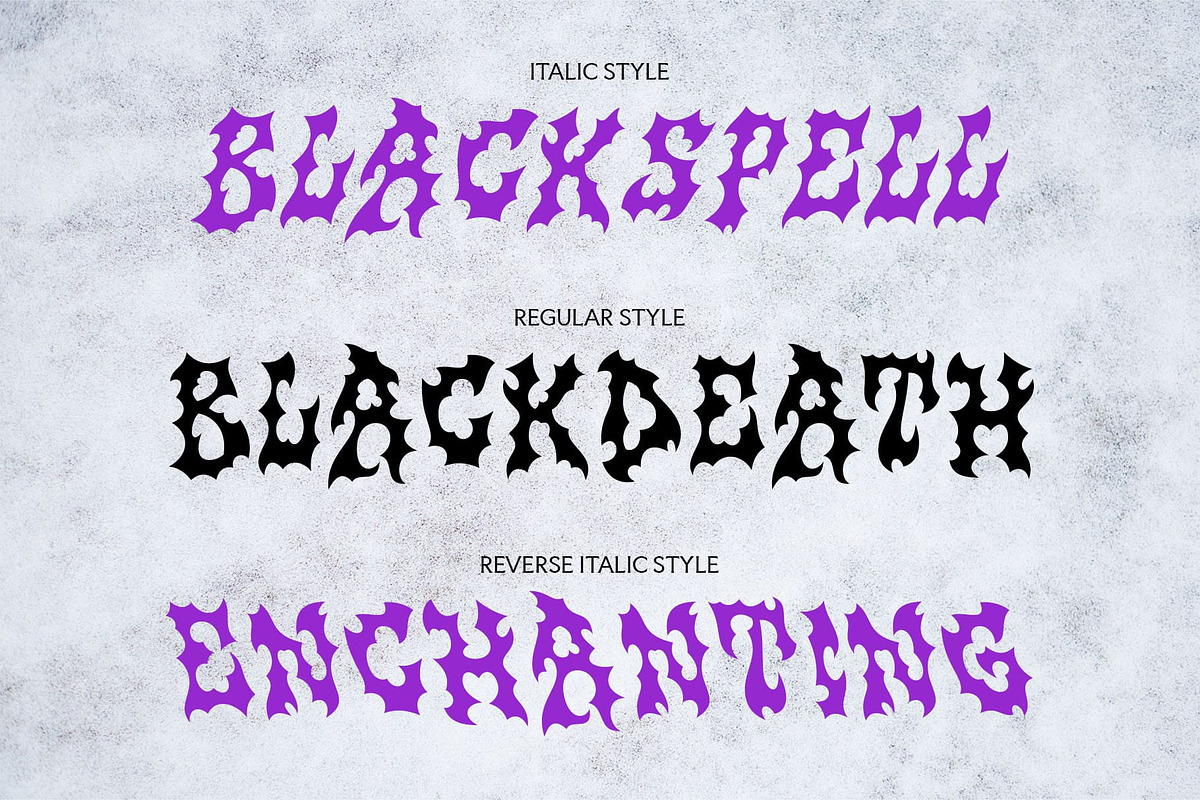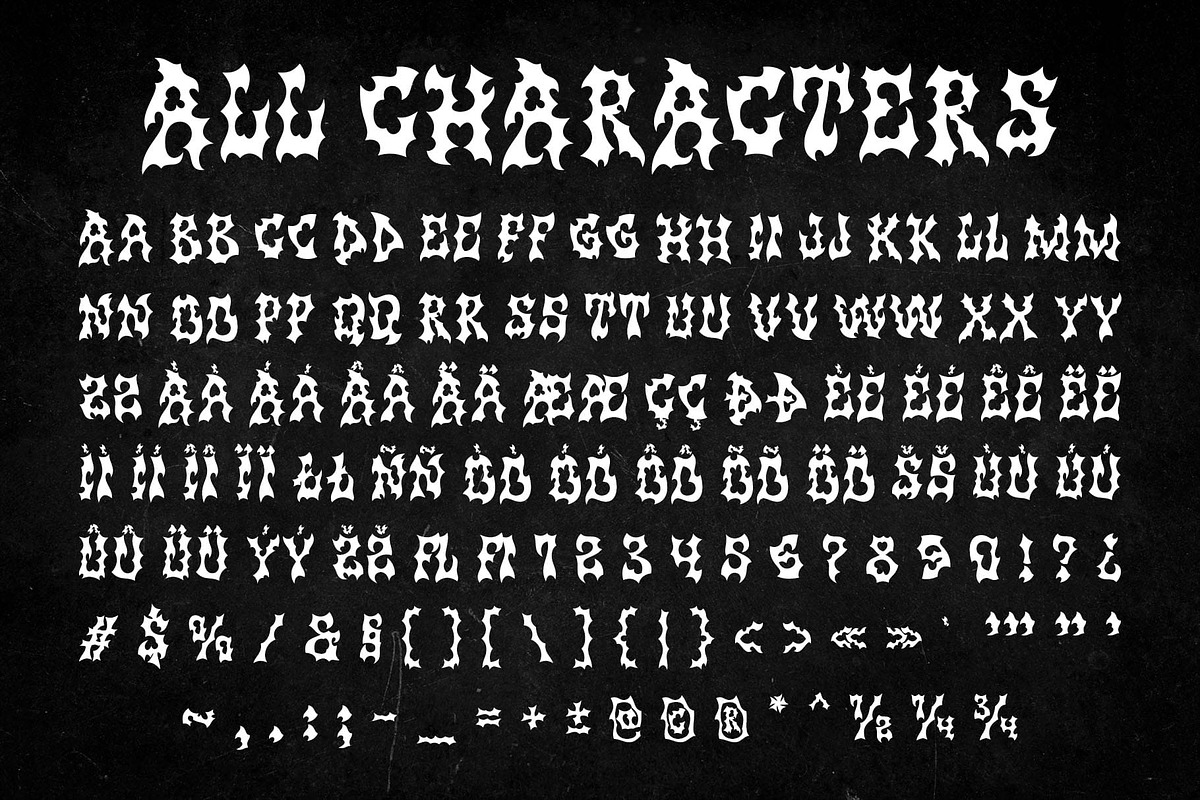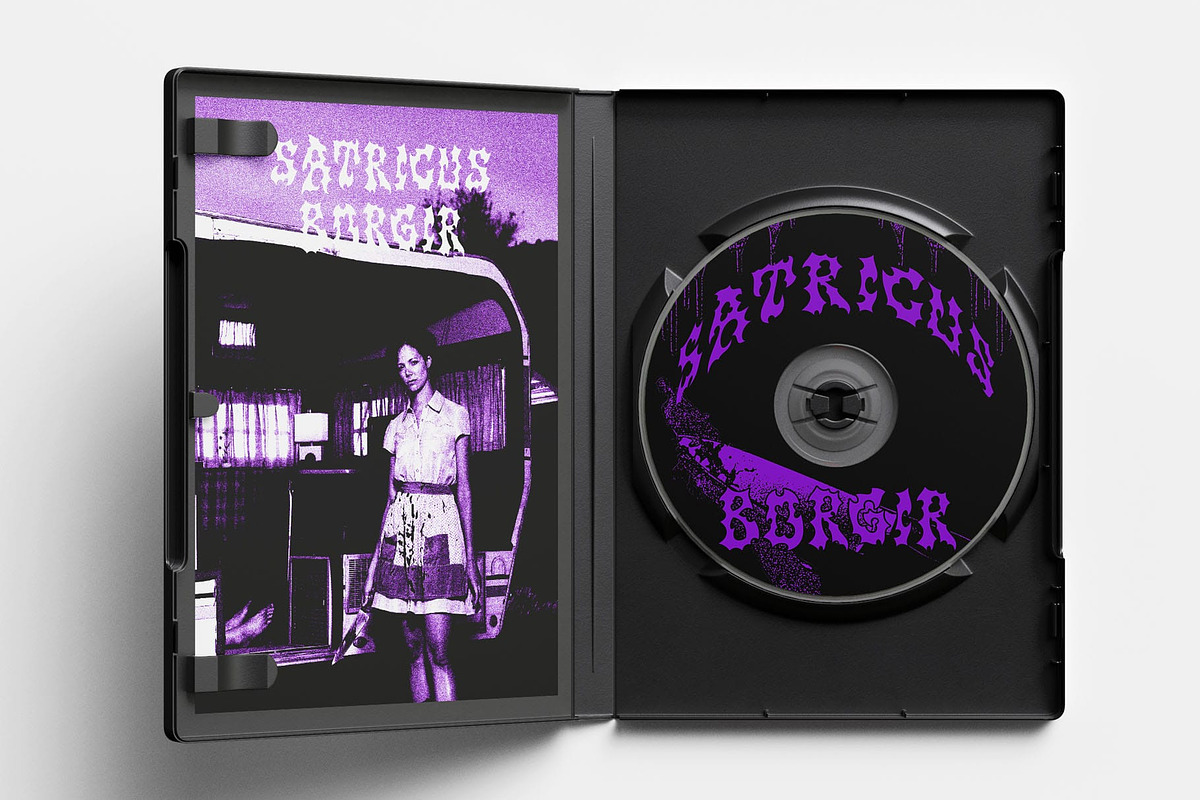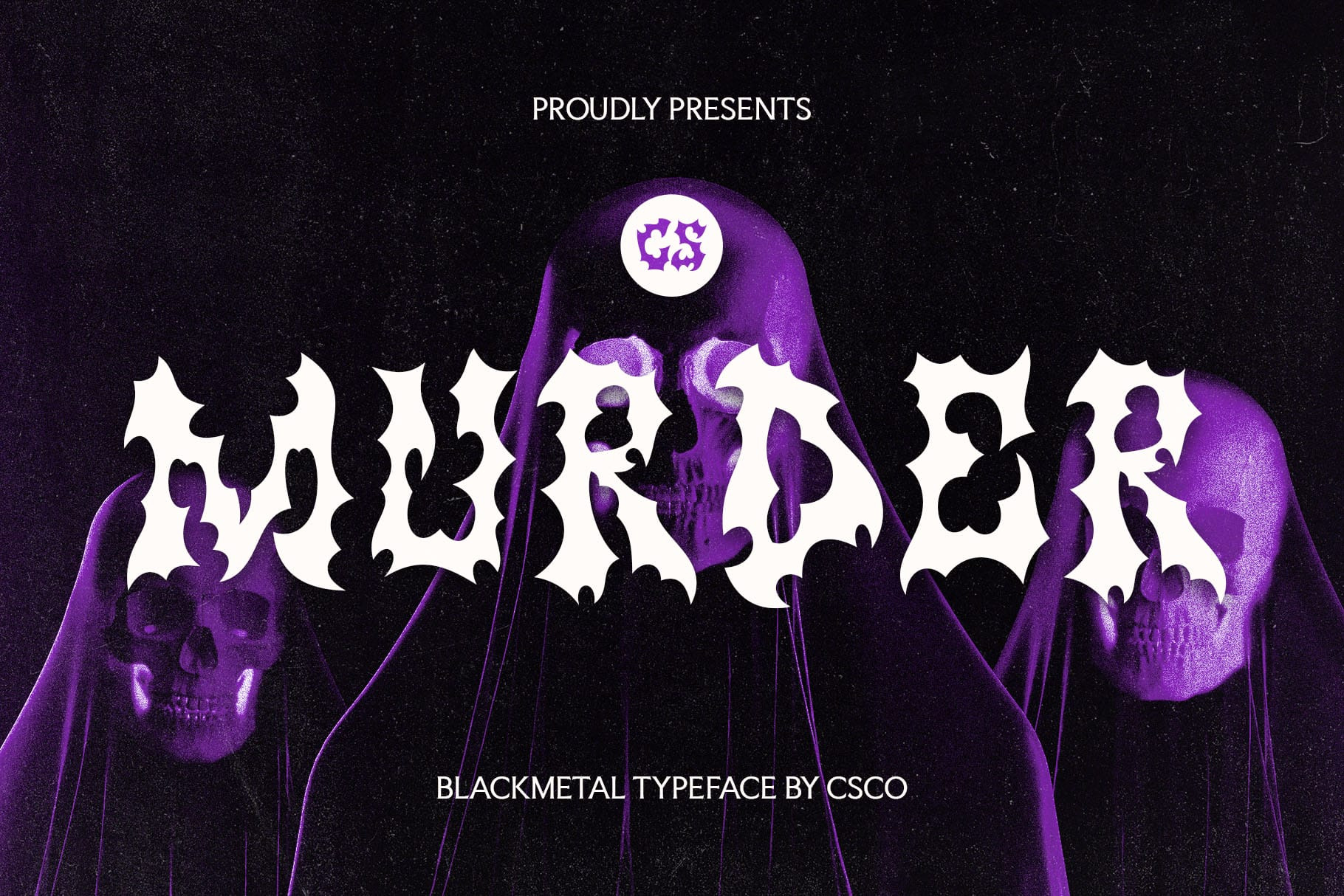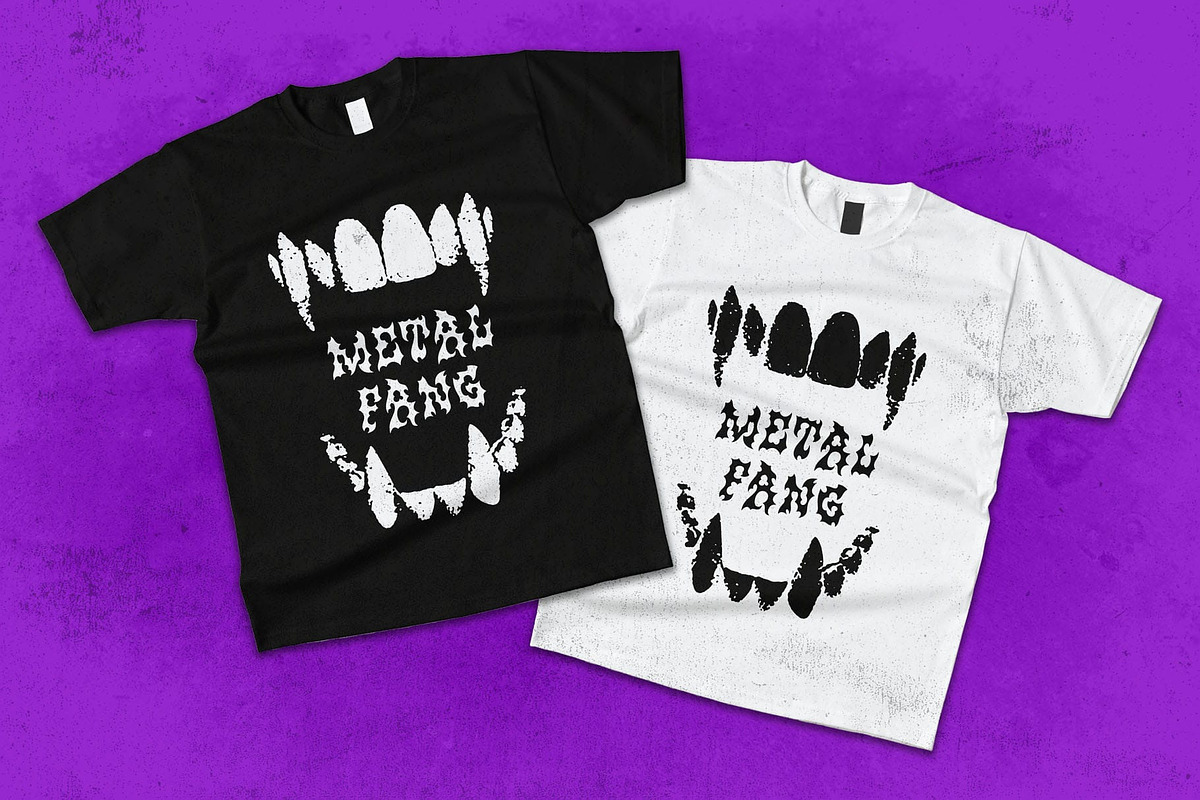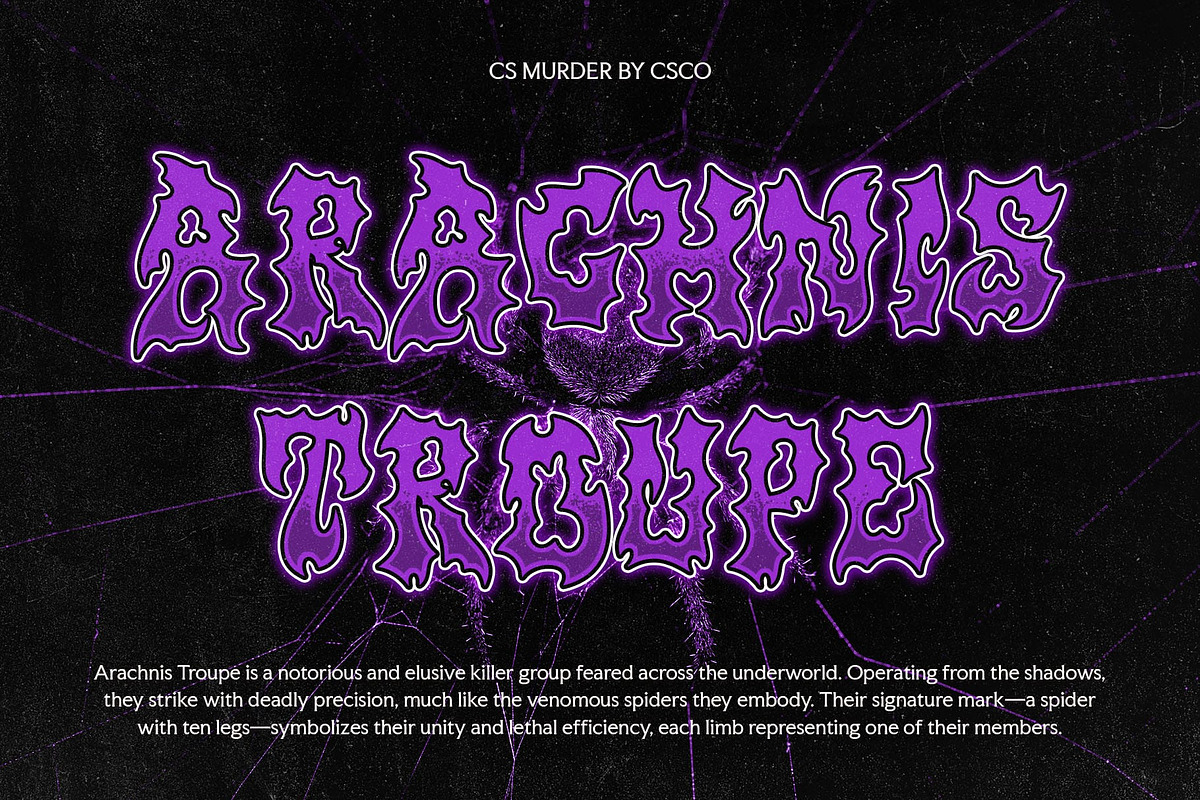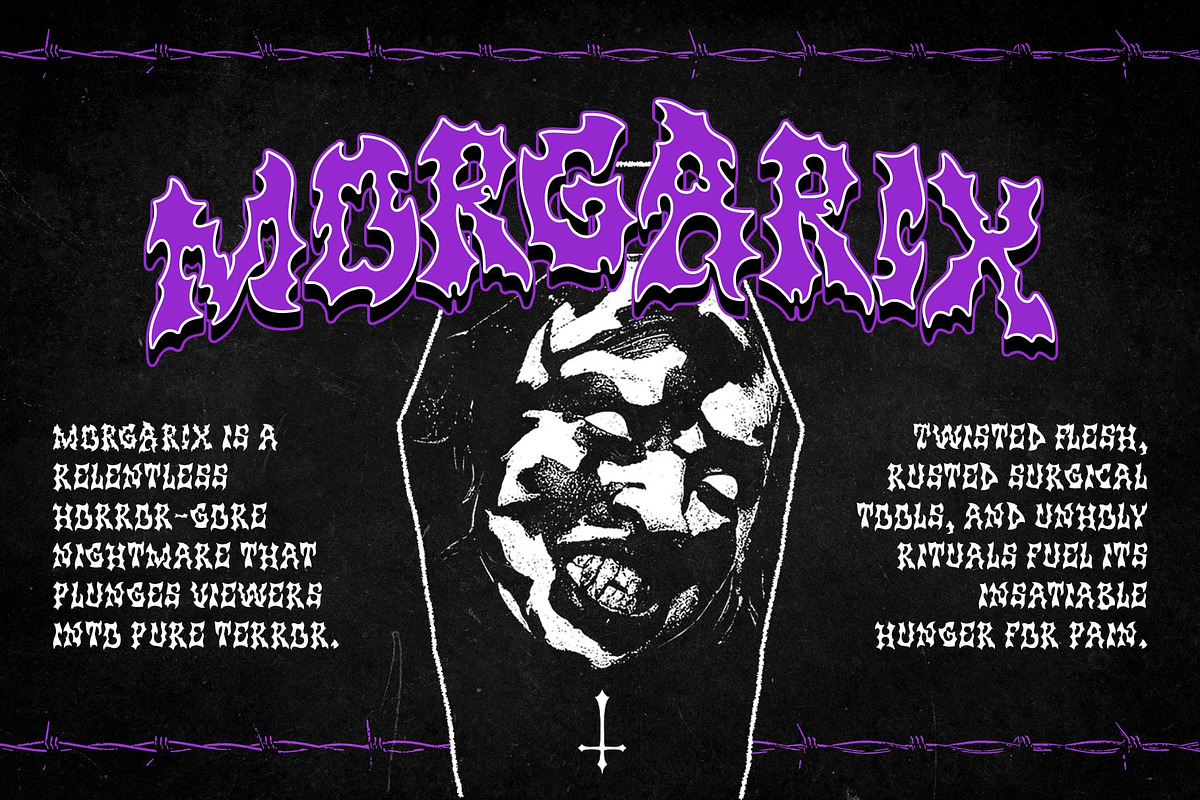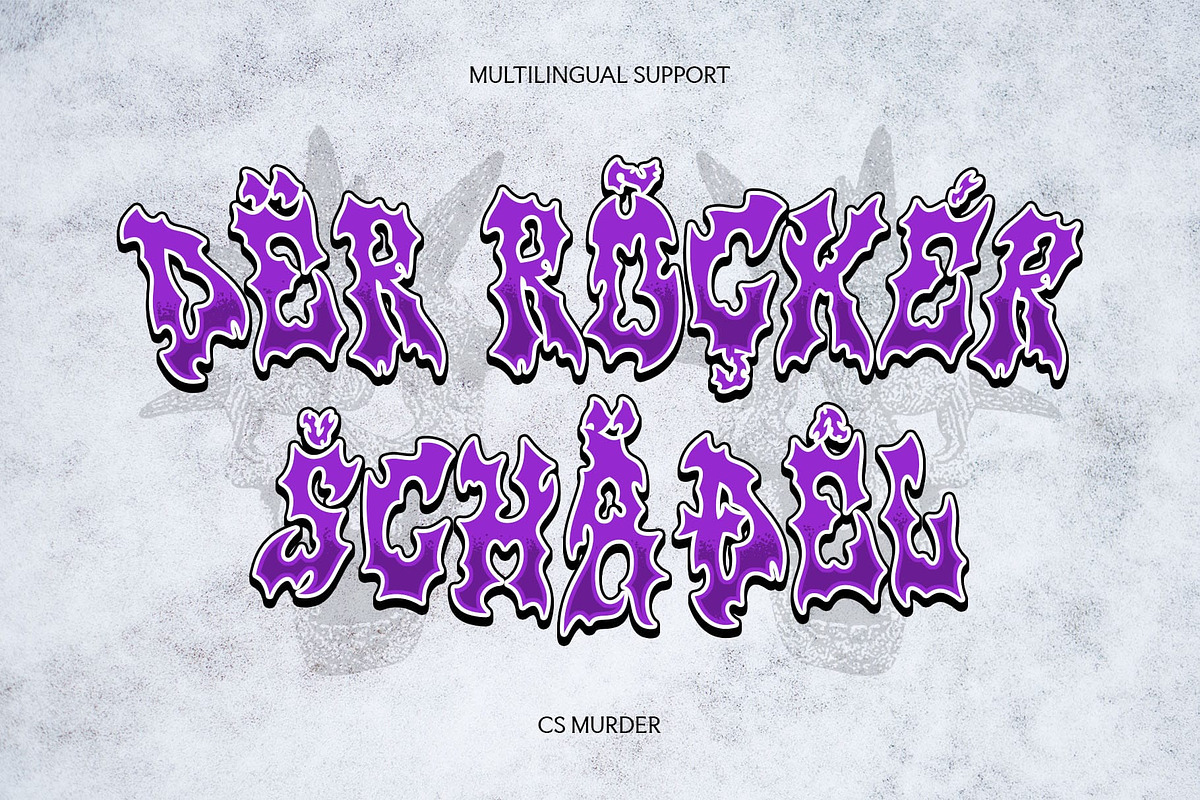
CS Murder – Black Metal Font
CS Murder – A Brutal & Haunting Black Metal Font
Unleash Darkness with Sharp, Thorn-Like Letterforms CS Murder is a Black Metal display font crafted to embody the raw aggression, chaos, and mysticism of extreme metal typography. Featuring sharp, jagged strokes that resemble twisted roots, thorns, or cracked branches, this font exudes a dark, eerie, and ominous presence. Its intricate details and distressed letterforms create a sense of brutality and rebellion.
Perfect for Extreme & Gothic-Themed Designs Designed for metal band logos, album covers, horror branding, gothic artwork, and dark fantasy themes, CS Murder is tailor-made for projects that embrace darkness and intensity. Its aggressive and highly detailed design perfectly captures the essence of black metal, death metal, and other extreme subgenres, making it a must-have for designers looking to create intimidating, electrifying, and high-impact visuals.
Command Attention with a Menacing & Unforgettable Style CS Murder is more than just a font—it’s an artistic statement of chaos and rebellion. Its ornate, chaotic letterforms add a ritualistic and supernatural feel, making it ideal for underground music scenes, horror projects, occult-inspired visuals, and alternative fashion branding.
Ideal for Designs That Evoke Fear & Power With its brutal, twisted aesthetic, CS Murder is perfect for those who want to push the boundaries of dark, gothic, and extreme design. Let your creations stand out with a font that radiates intensity, mysticism, and an unrelenting edge.